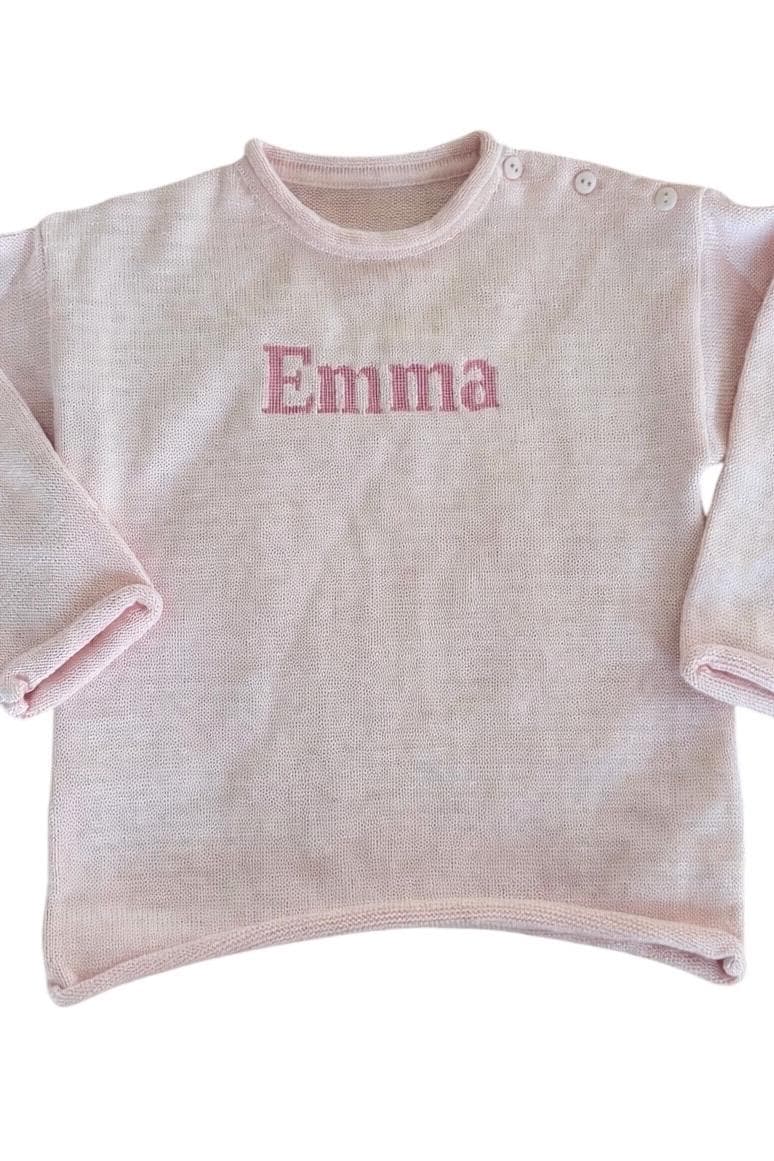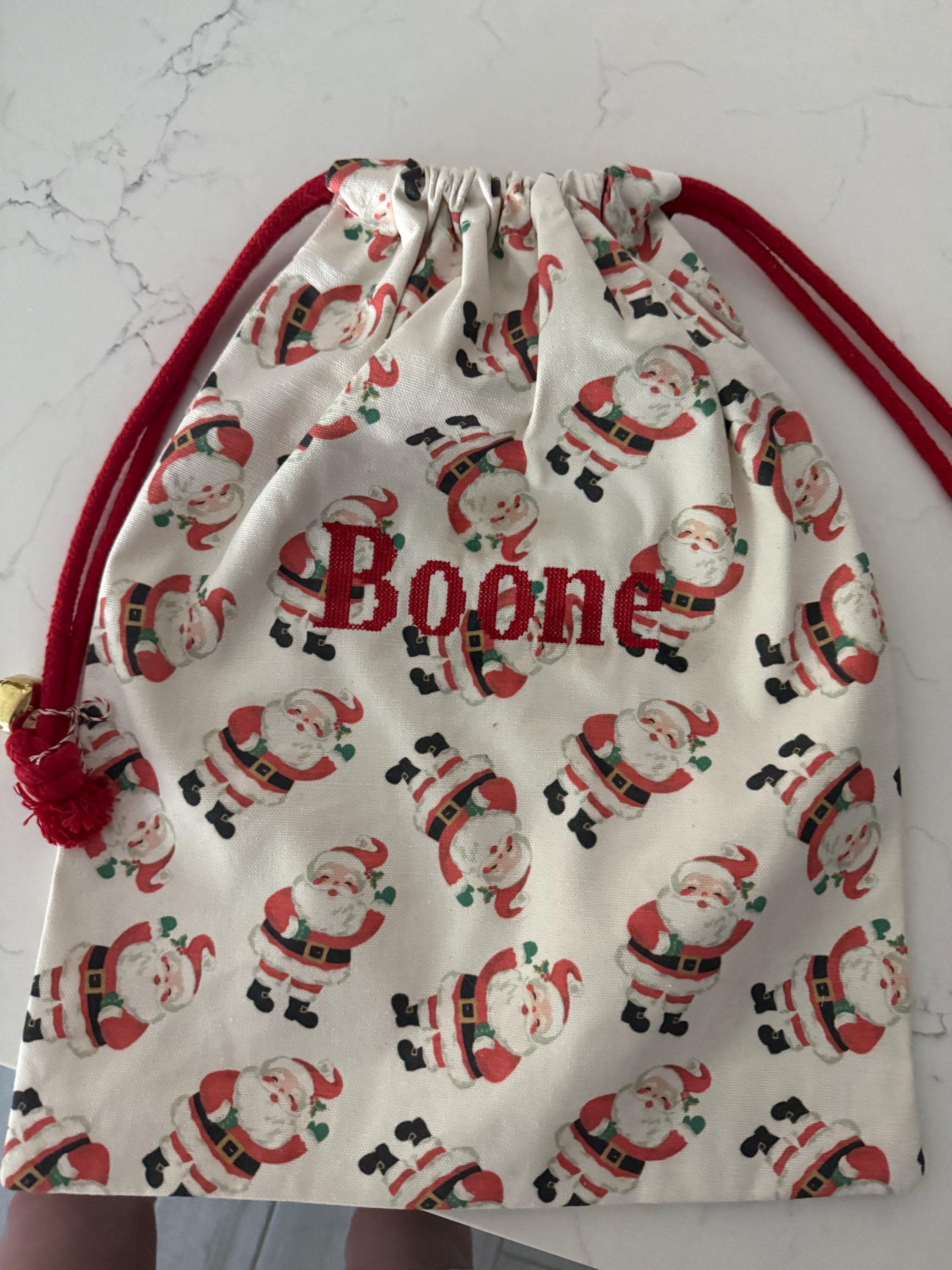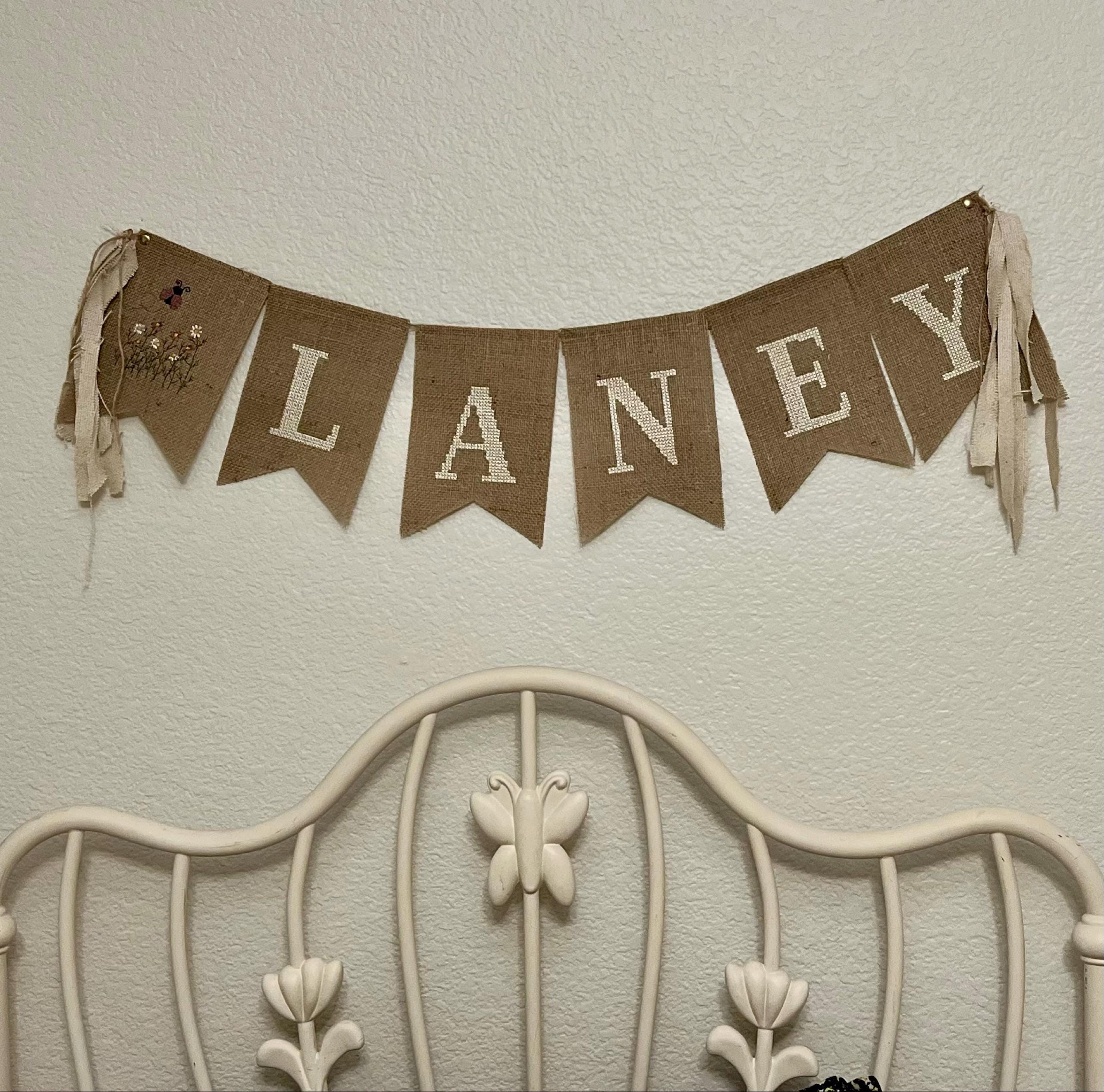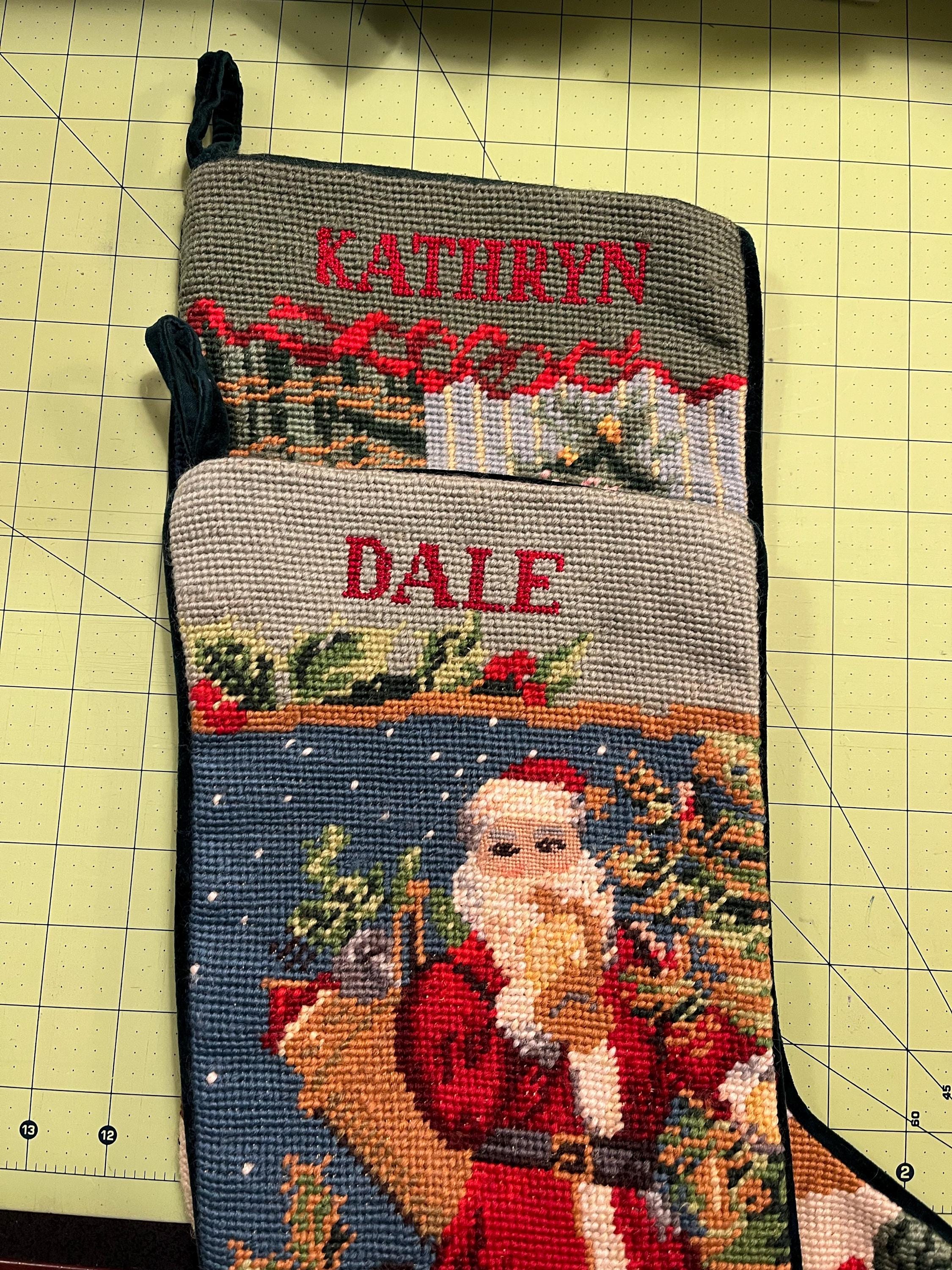
Christmas Cross Stitch Font opens a simple, classy block alphabet for holiday projects. This Christmas embroidery font and cross stitch alphabet includes uppercase, lowercase, numbers and punctuation so you can create personalized Christmas font monograms and home decor. Sizes range from 1" up to 3.3" to suit tiny tags or larger stockings. Supplied in common machine formats (PES, DST, EXP, VIP, HUS, XXX, JEF, VP3), the design uses a single color and 4,081 stitches for a clean folk-style stitch finish that works well with 4x4 hoops.
Is this a true cross stitch-style font and what characters are included?
This is a cross stitch-style block font designed for machine embroidery; it contains uppercase, lowercase, numbers and punctuation so you can compose full names, dates and phrases.